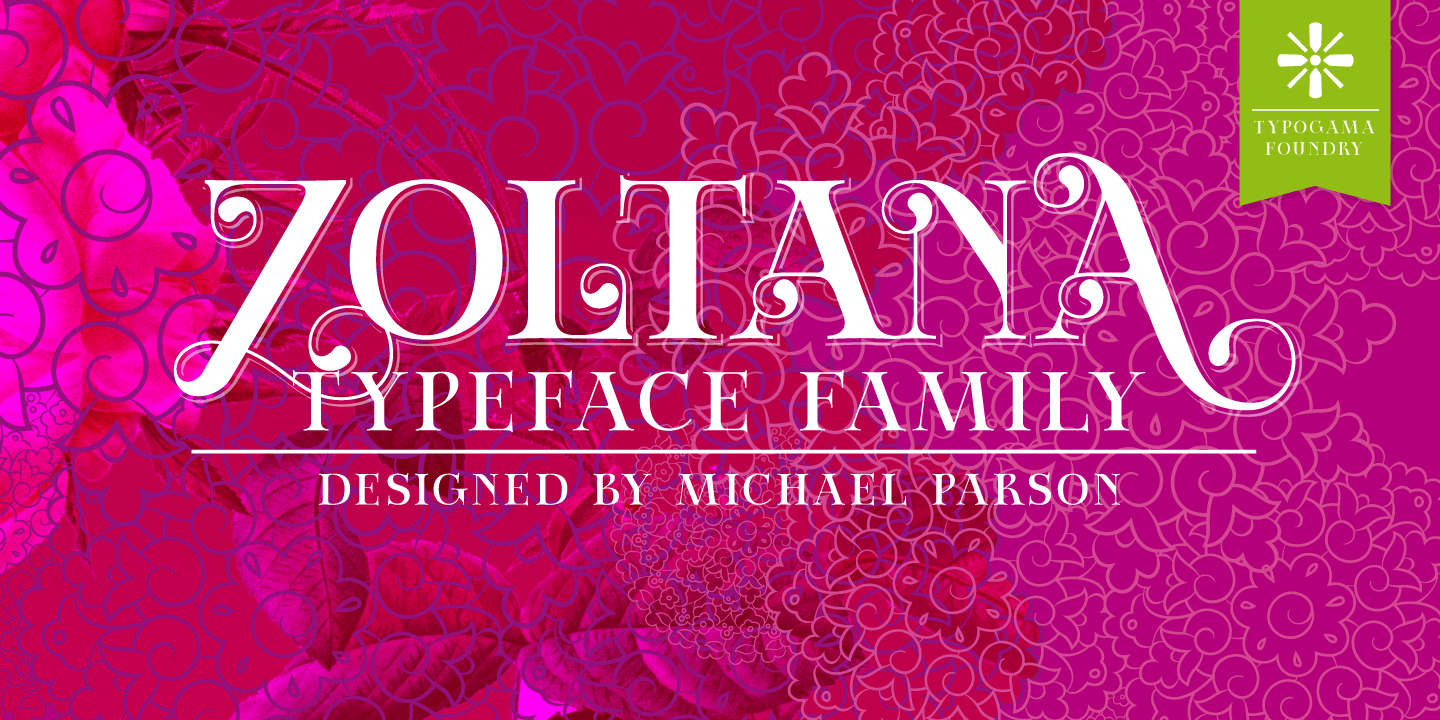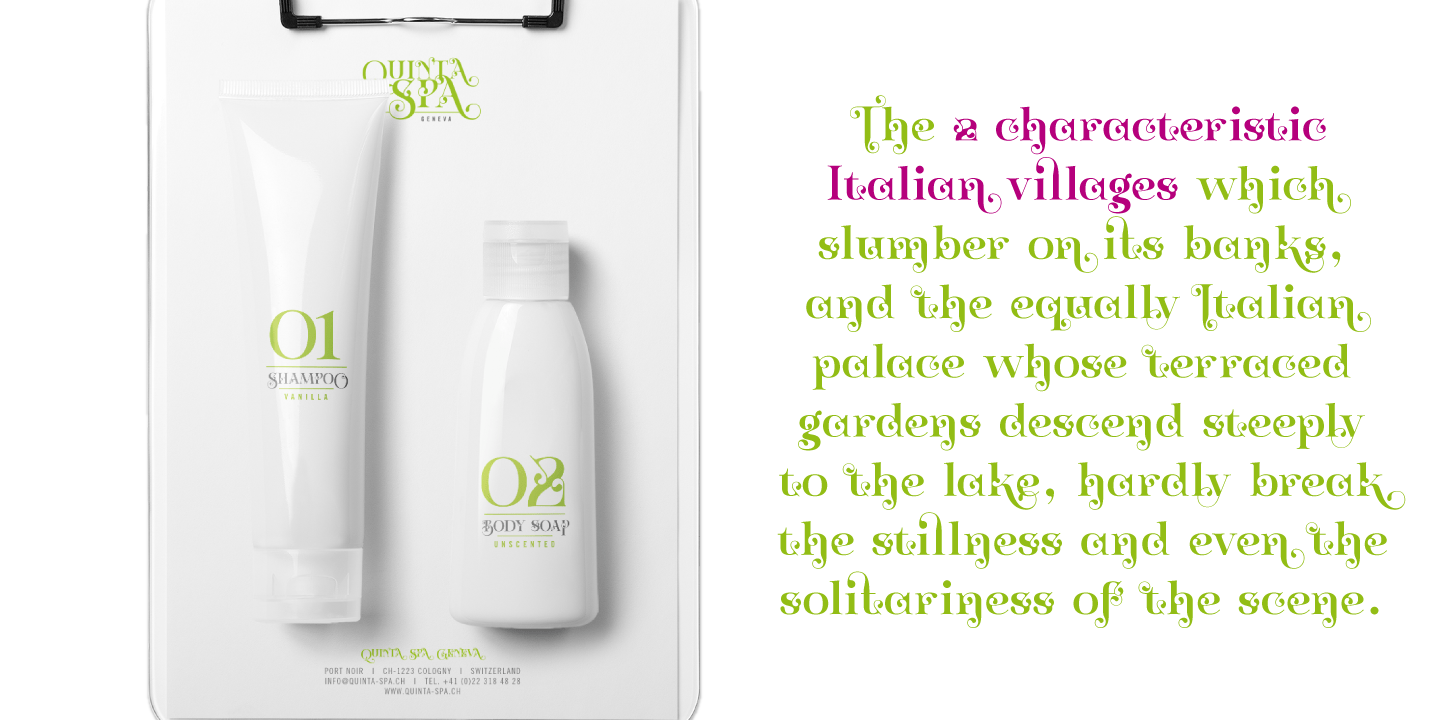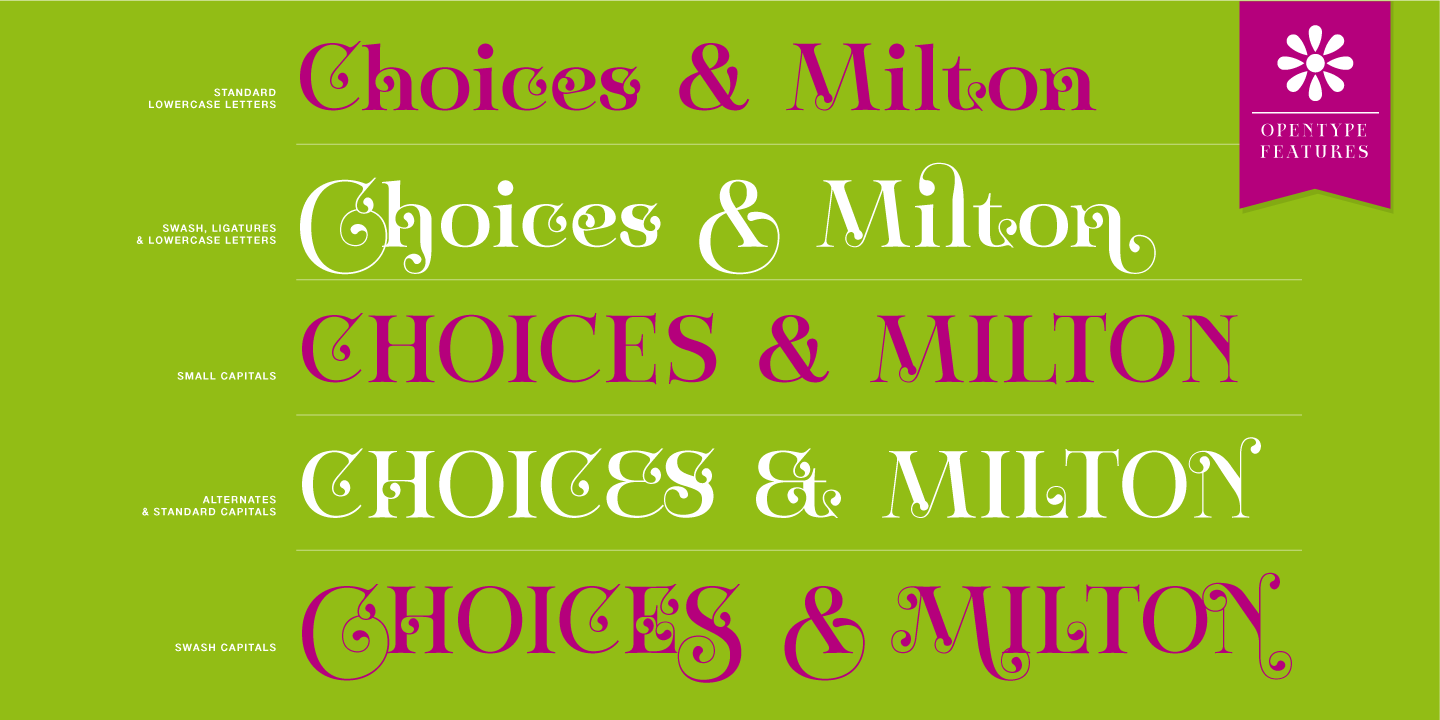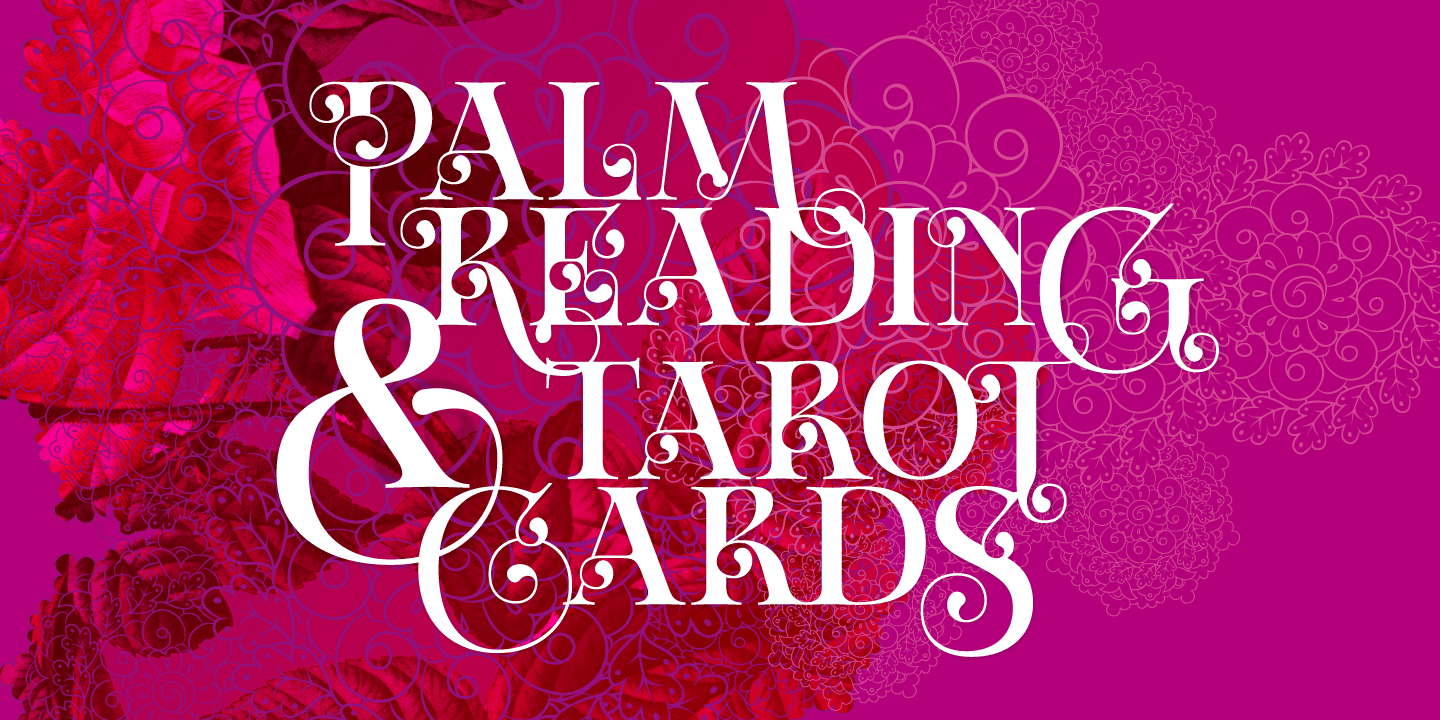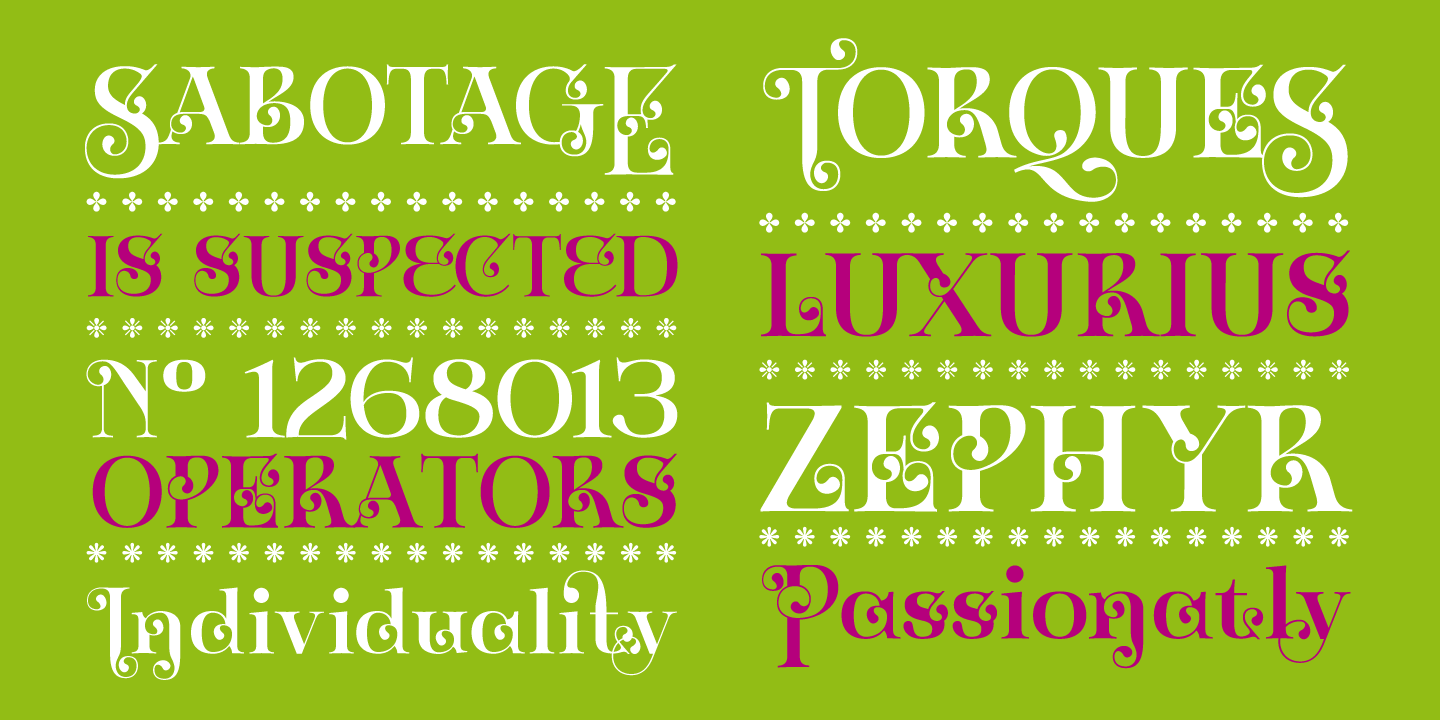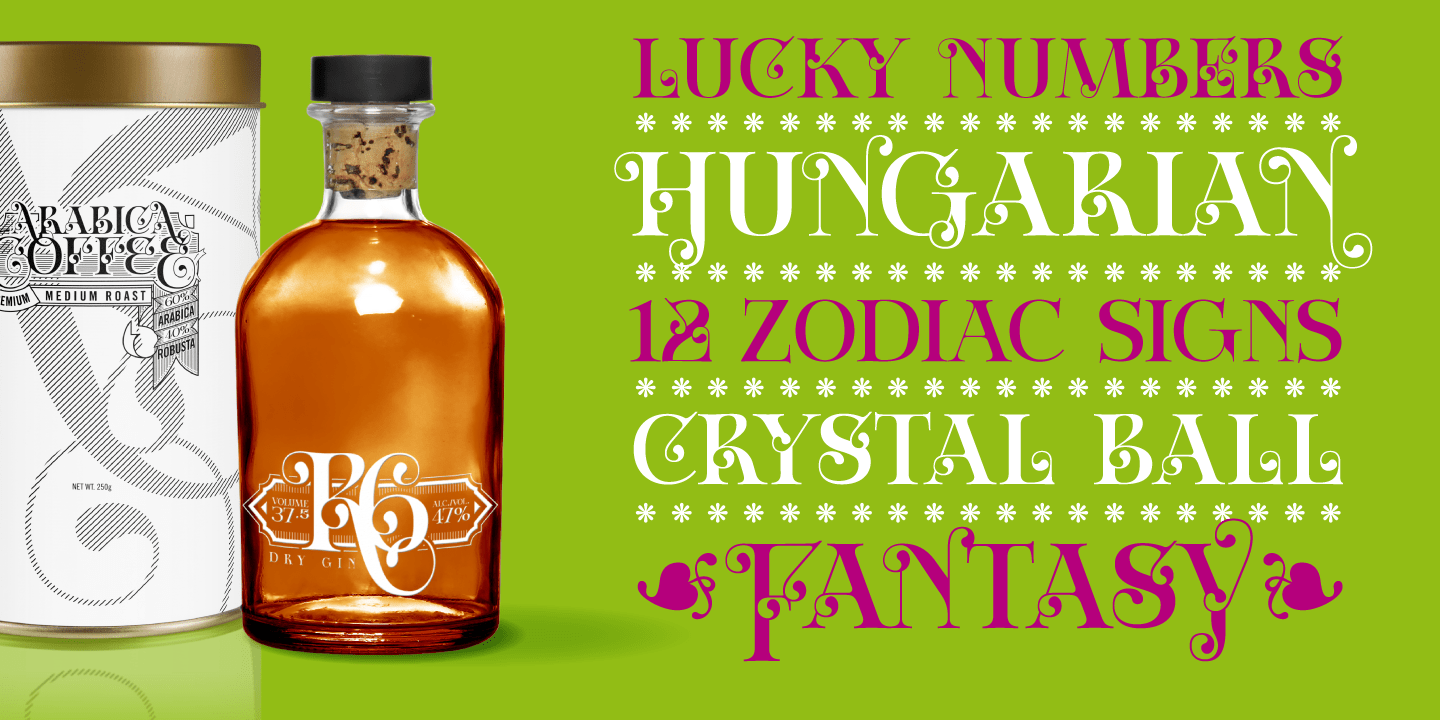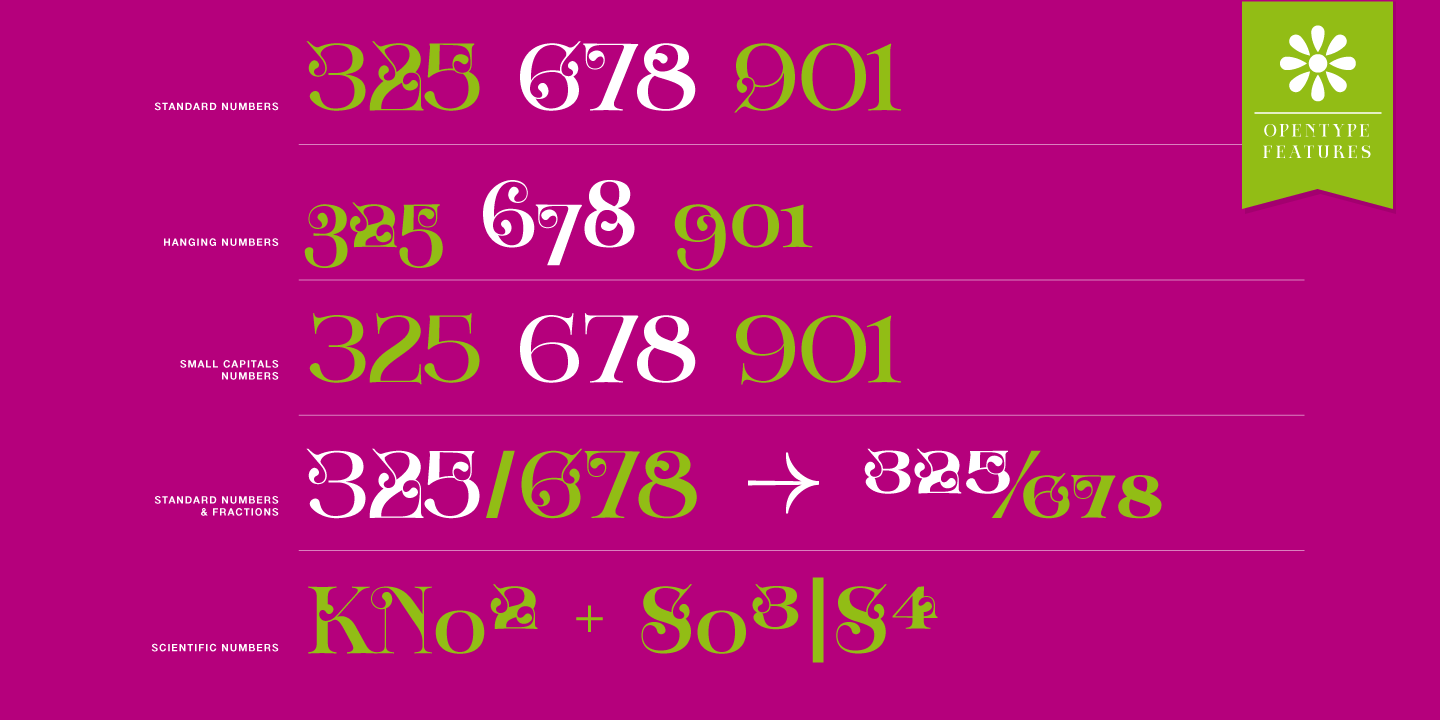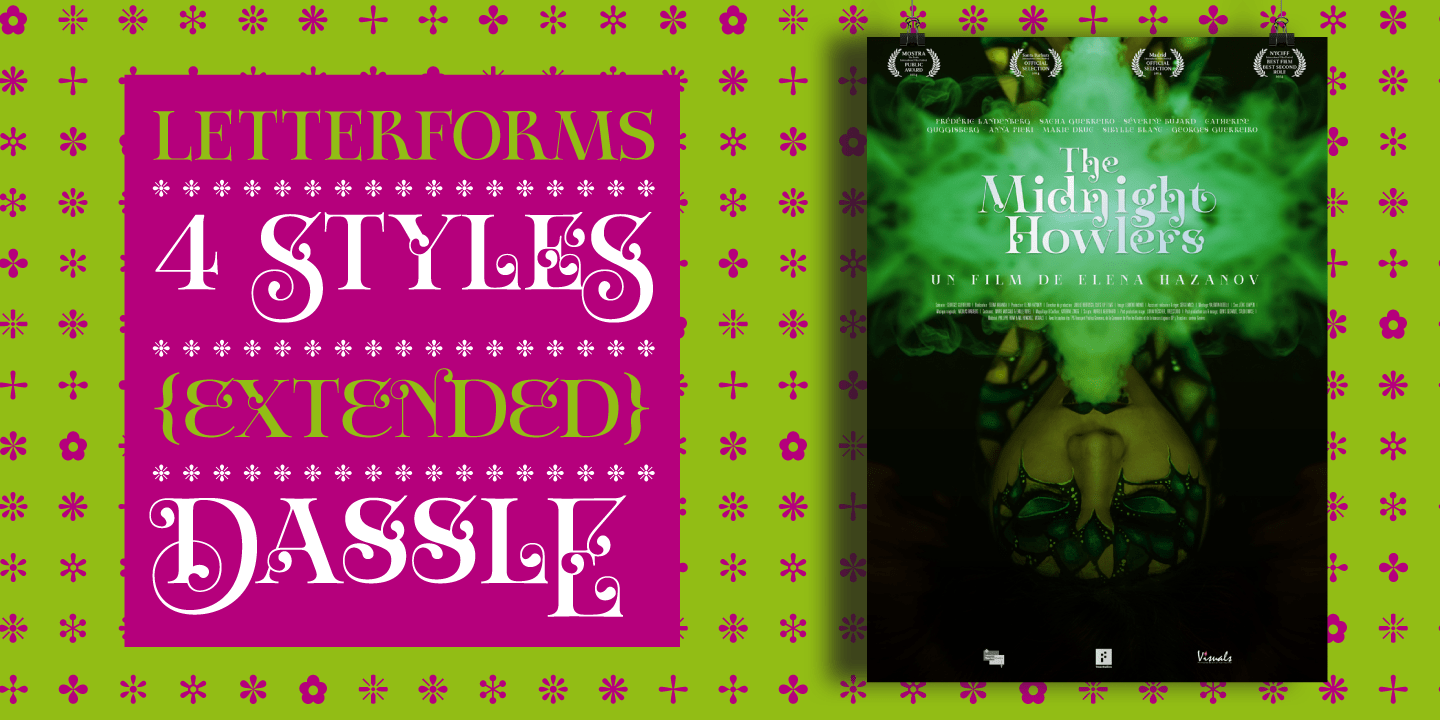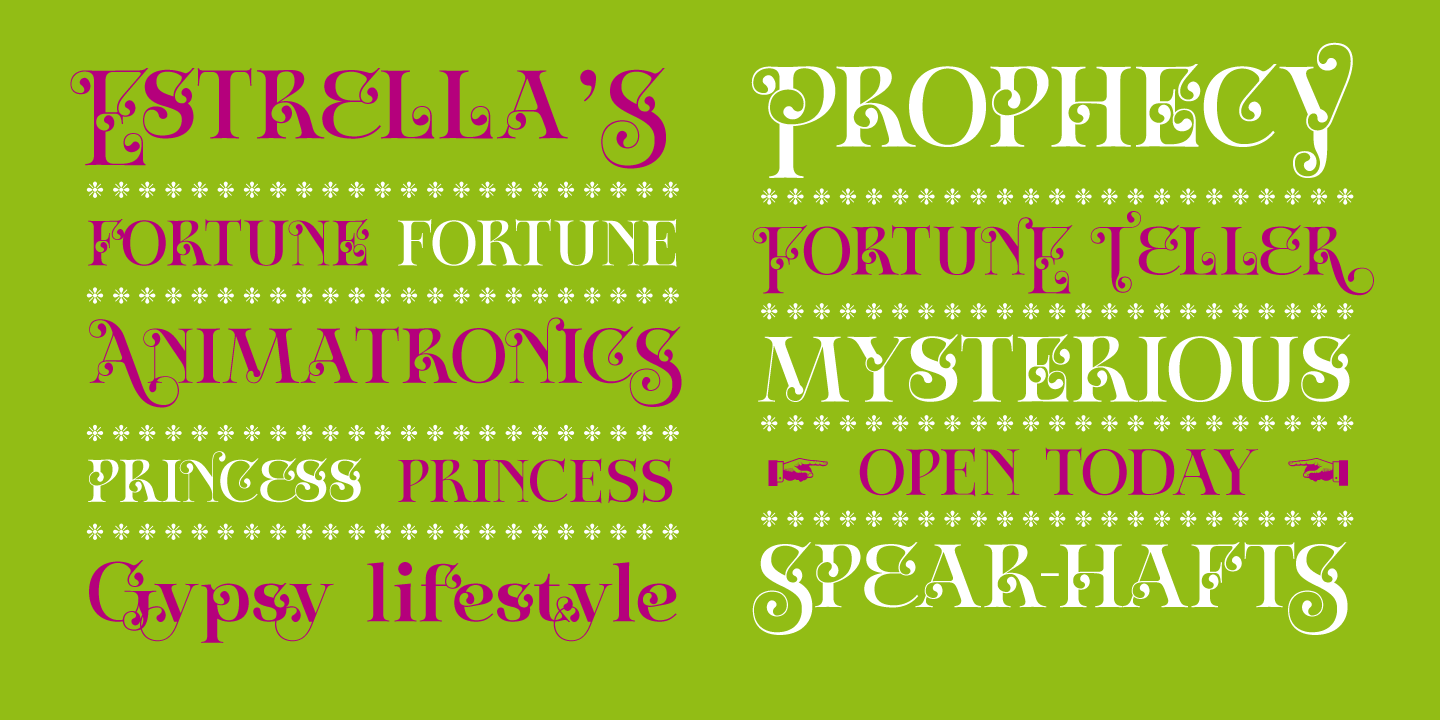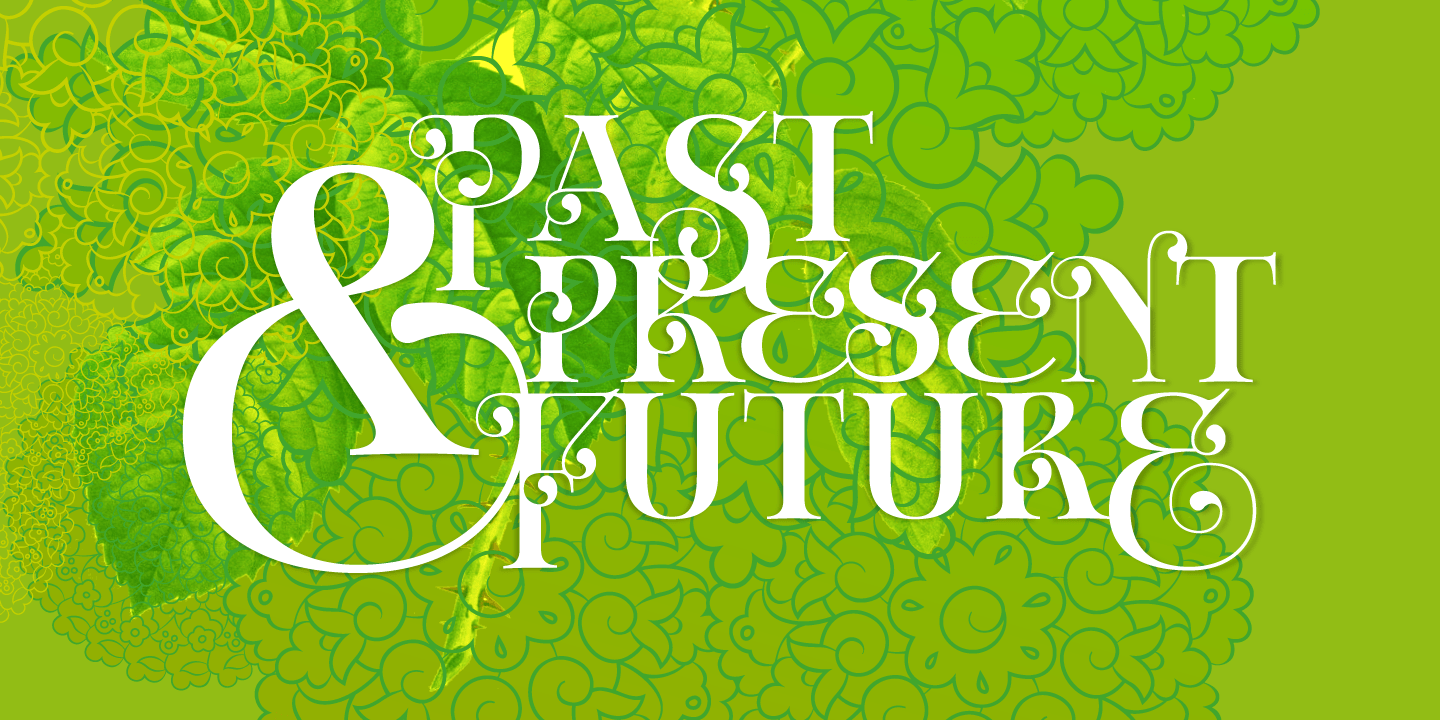
Zoltana
Zoltana is a lively decorative typeface family designed for elaborate titling or text layouts, with an elaborate form and filled with delicate details, this font aims to grab attention and fill the viewer with a sense of wonder.
Thanks to an extensive glyph palette, this single typeface offers a range of letterforms through alternate letters. small capitals, ligatures or swash letters and includes a selection of typographic fleurons that can be used in the layouts or individually.